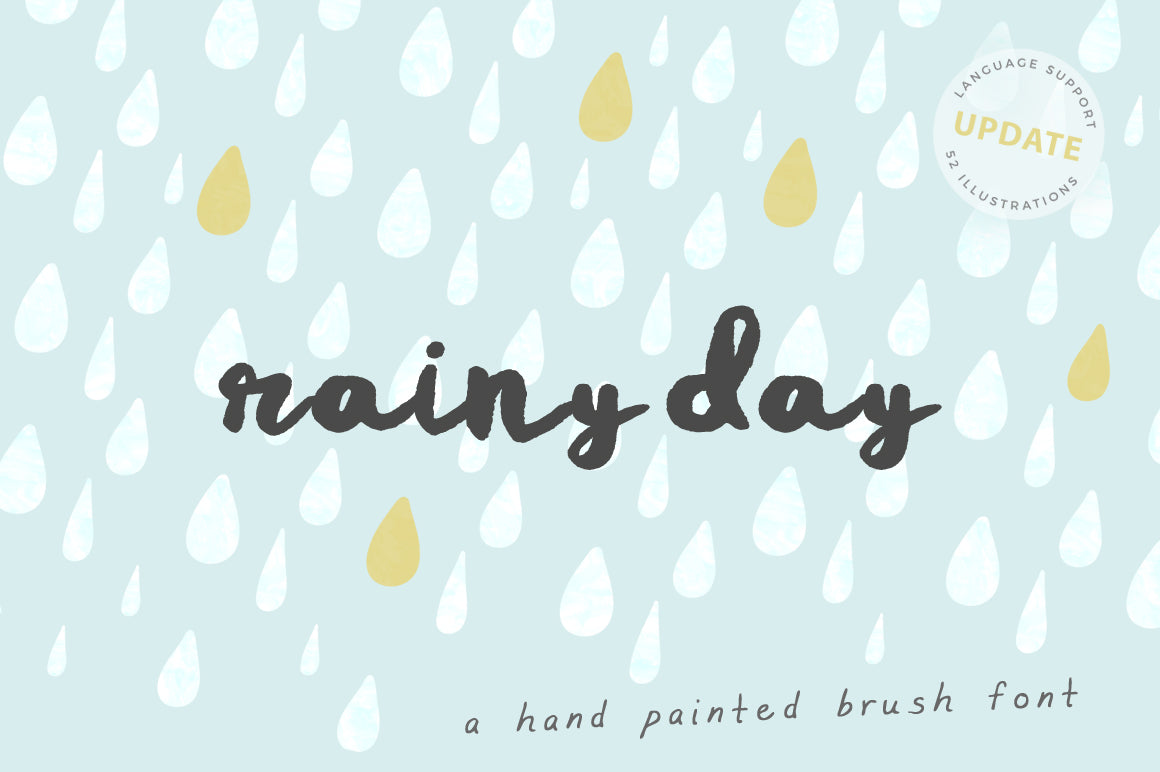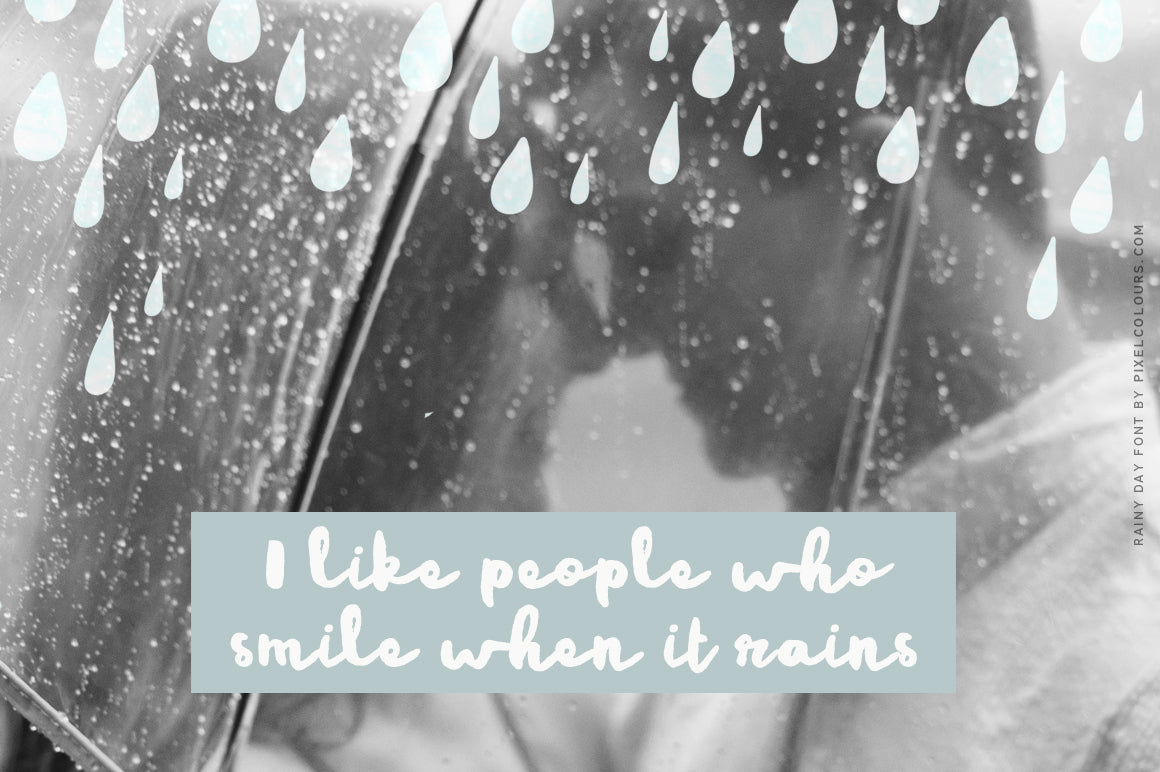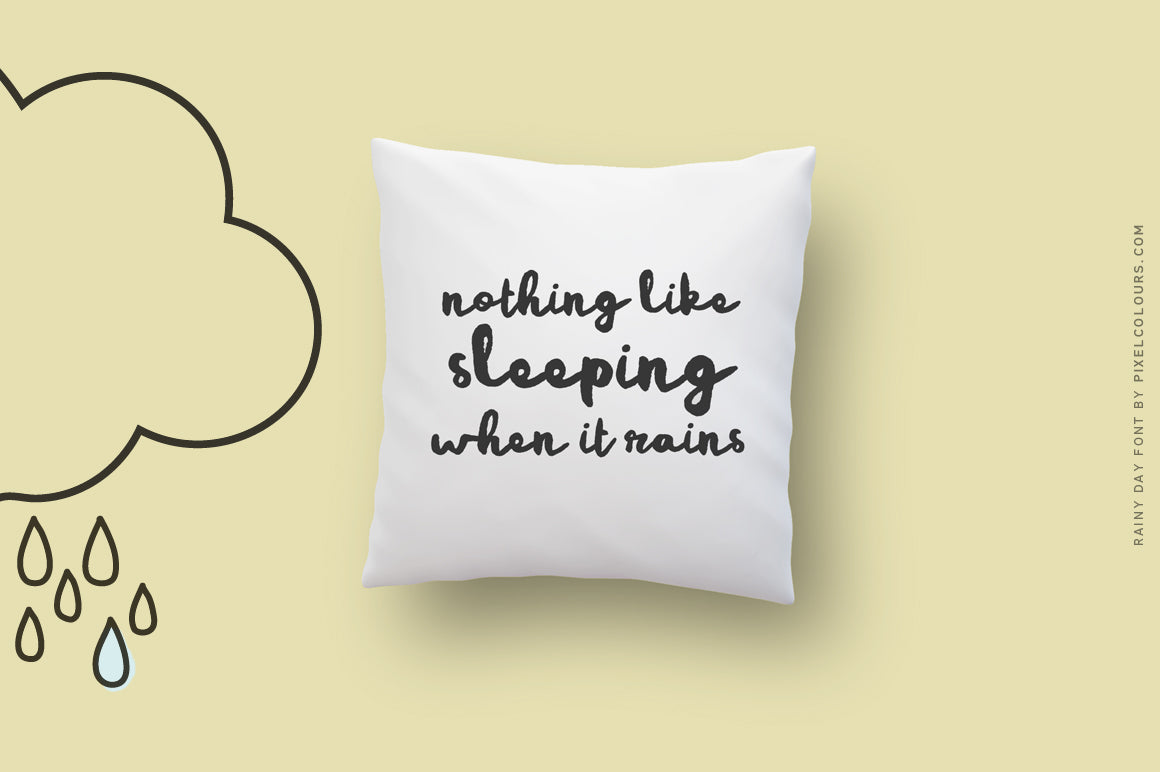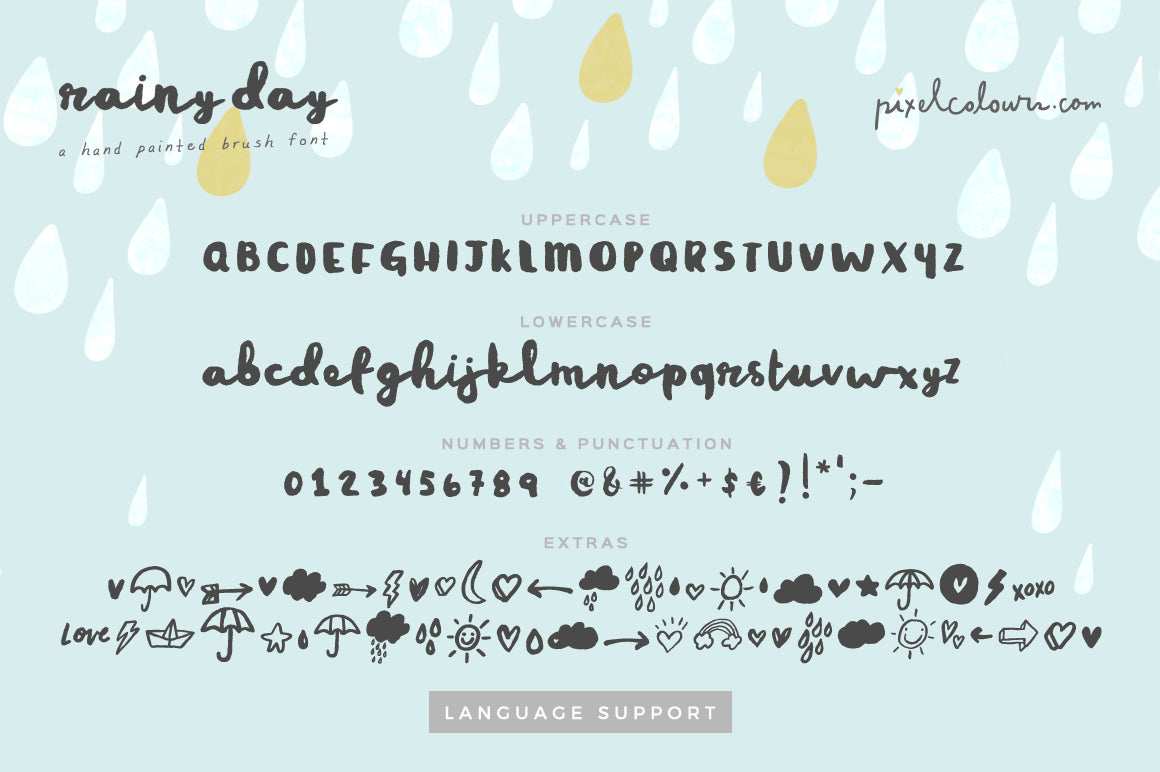
Rainy Day Brush Script Font
Rainy Day is a hand painted brush font that includes lots of cute illustrations to make the sweetest designs!
- Rainy Day: hand painted cursive font
- Rainy Day Extras: 52 hand painted illustrations for decoration